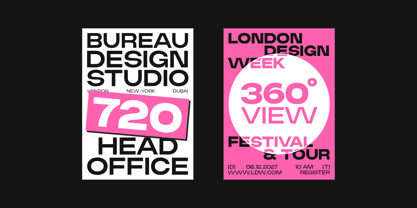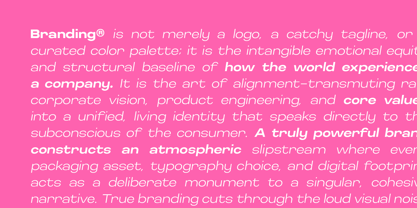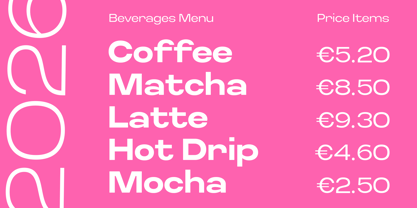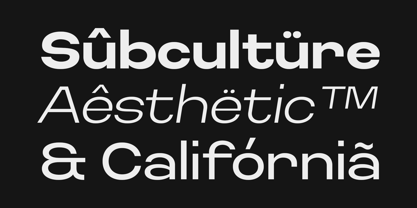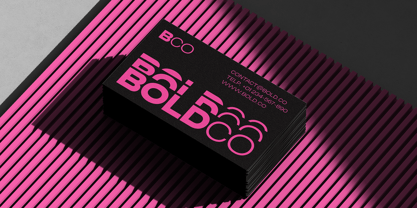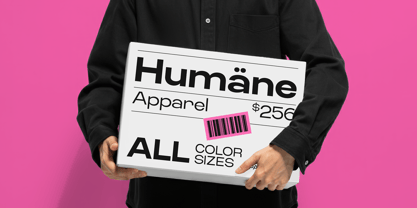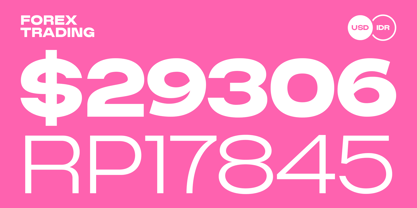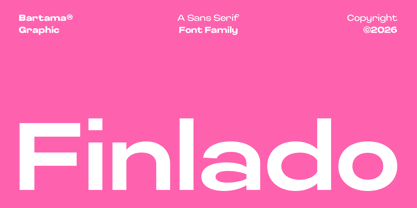
Finlado Variable
Die Schriftfamilie Finlado Variable wurde von Rizki Akbari Utama entworfen und von Bartama Graphic veröffentlicht. Finlado Variable enthält 2 Stile und Familienpaketoptionen. Mehr über diese Familie
Finlado is a modern sans serif typeface crafted with clean geometry, balanced proportions, and a refined contemporary aesthetic. Designed to communicate with clarity and confidence, it delivers a professional yet approachable appearance that works effortlessly across a wide range of creative projects.
Its minimalist structure creates a strong visual presence while maintaining excellent readability, making it suitable for branding, editorial design, packaging, advertising, digital products, and modern visual communication.